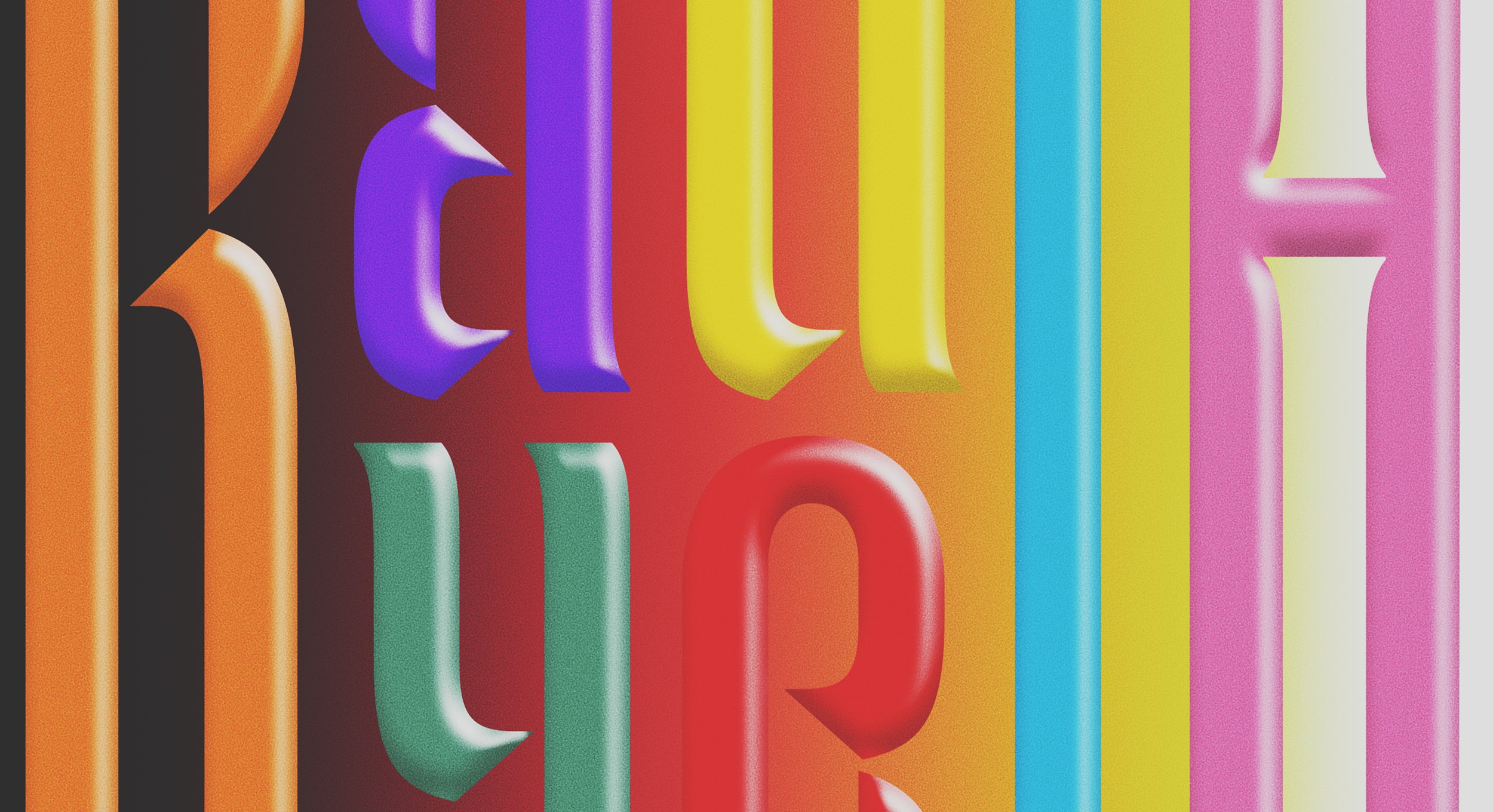
Welcome to the world of Rayuela, would you like to play a game? Specifically, Hopscotch.
Rayuela
Full of Stackable Letters
Welcome to the world of Rayuela, would you like to play a game? Specifically, Hopscotch. Inspired by the classic playground pastime, with its name stripped from the Julio Cortázar novella, Rayuela’s condensed stencil-like semi-gothic design follows a joyful, rhythmic structure – stackable in pairs in its construction.
Available in full-sized, half-size or layered, its individual characters are contextually aware, resulting in spirited, consistent textures and fun features across the typeface’s letterforms. Due to its structural cadence, Rayuela is suited for any and all display applications, from small text boxes to large scale explosions of unburdened expression. Feel free once more, unbridled, curious and innocent in the beautiful chaos and obscurity of childhood play.